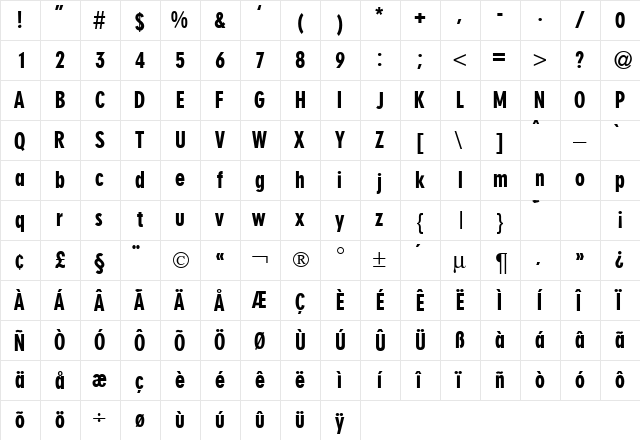
NenaConDB Normal Font Preview
NenaConDB Normal
NenaConDB Normal Font Details
Design Context for NenaConDB Typeface
NenaConDB is a composed and adaptable typeface that performs quietly and consistently across a wide range of design contexts. The condensed width makes it efficient for tight spaces without sacrificing legibility.